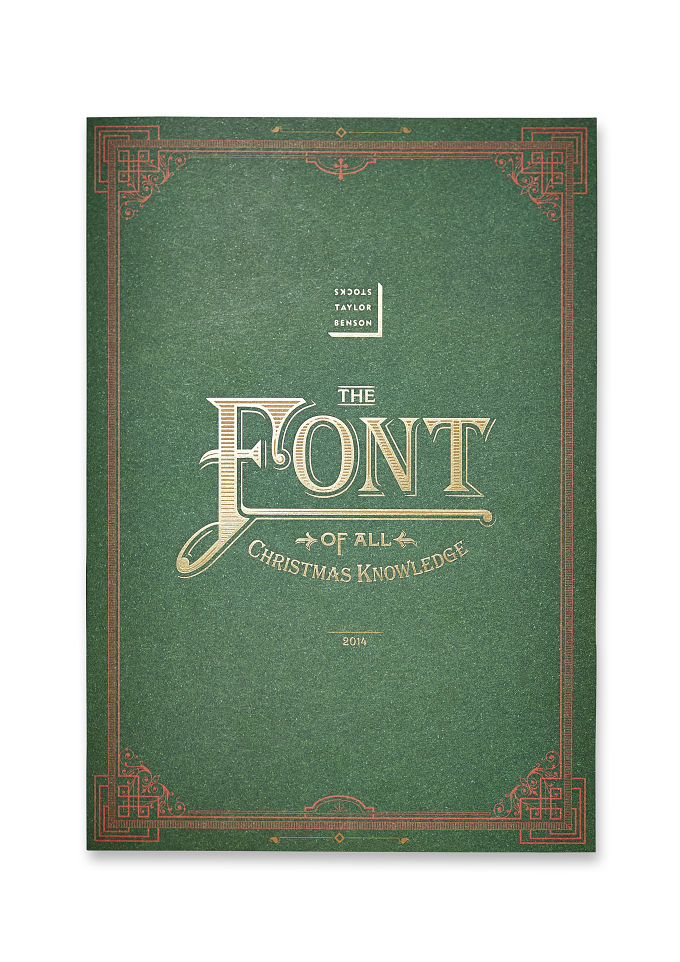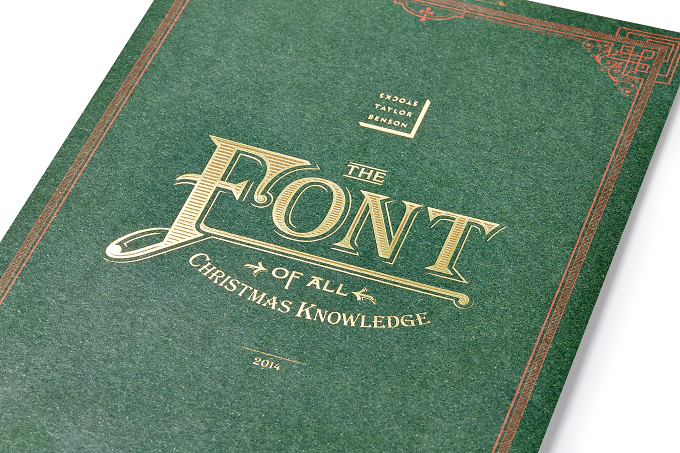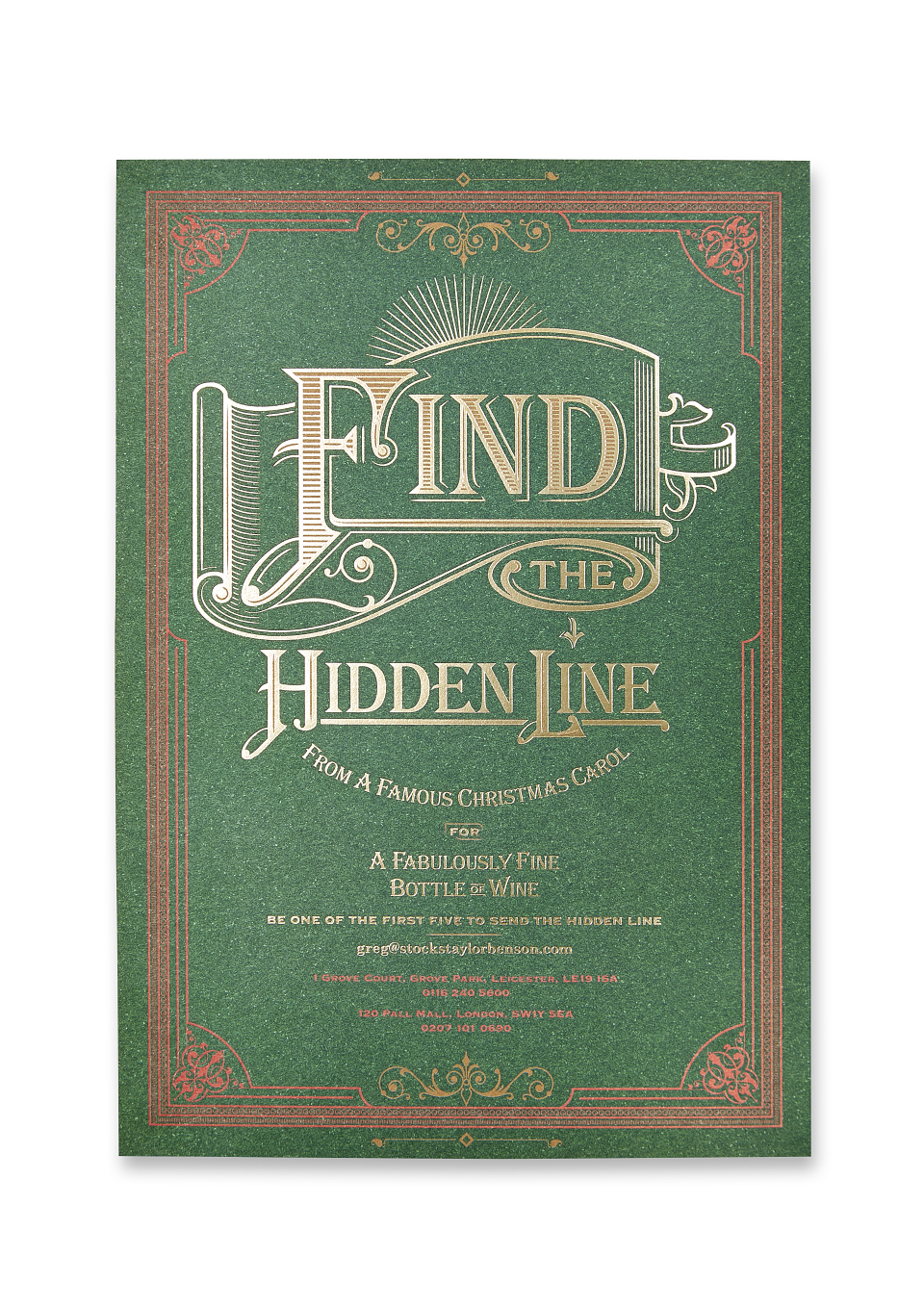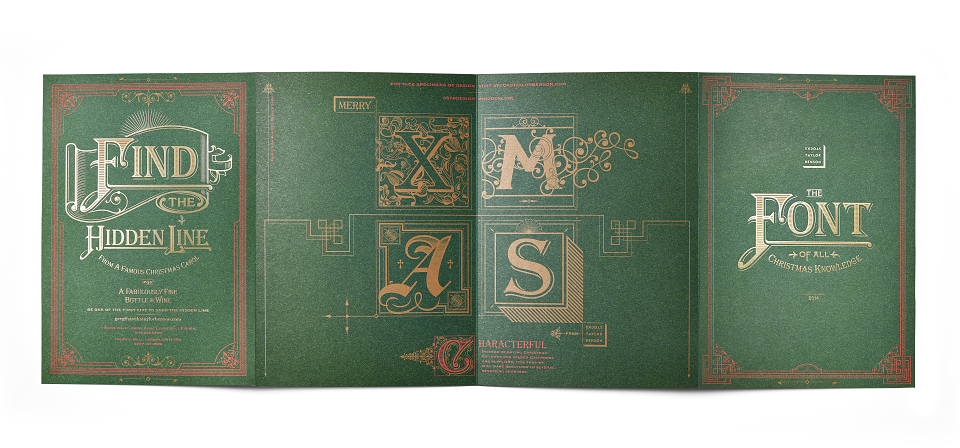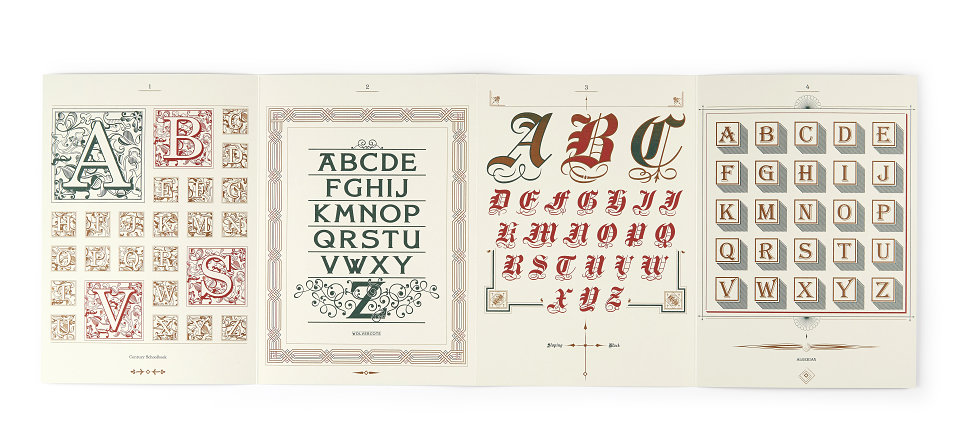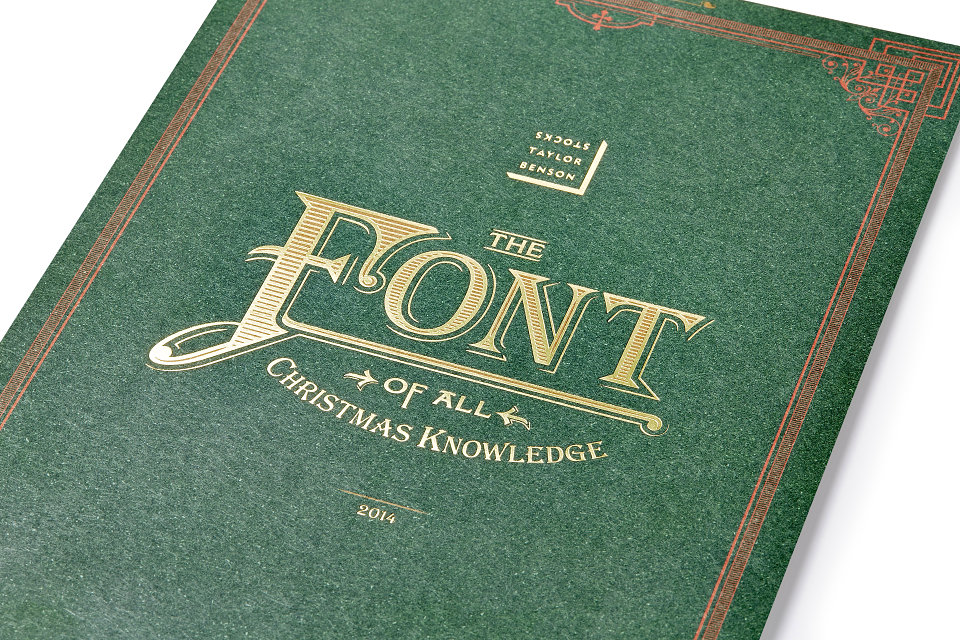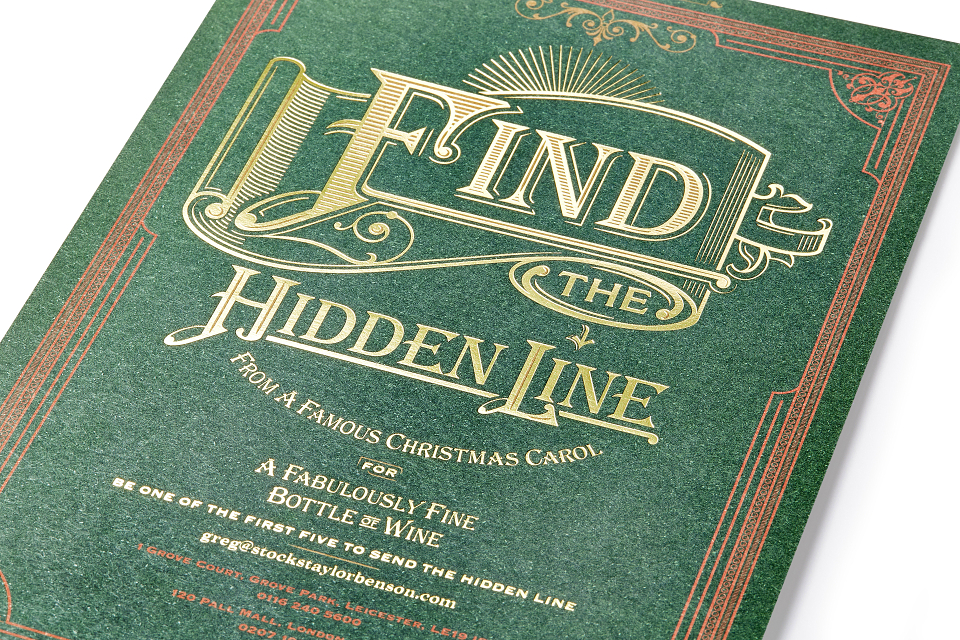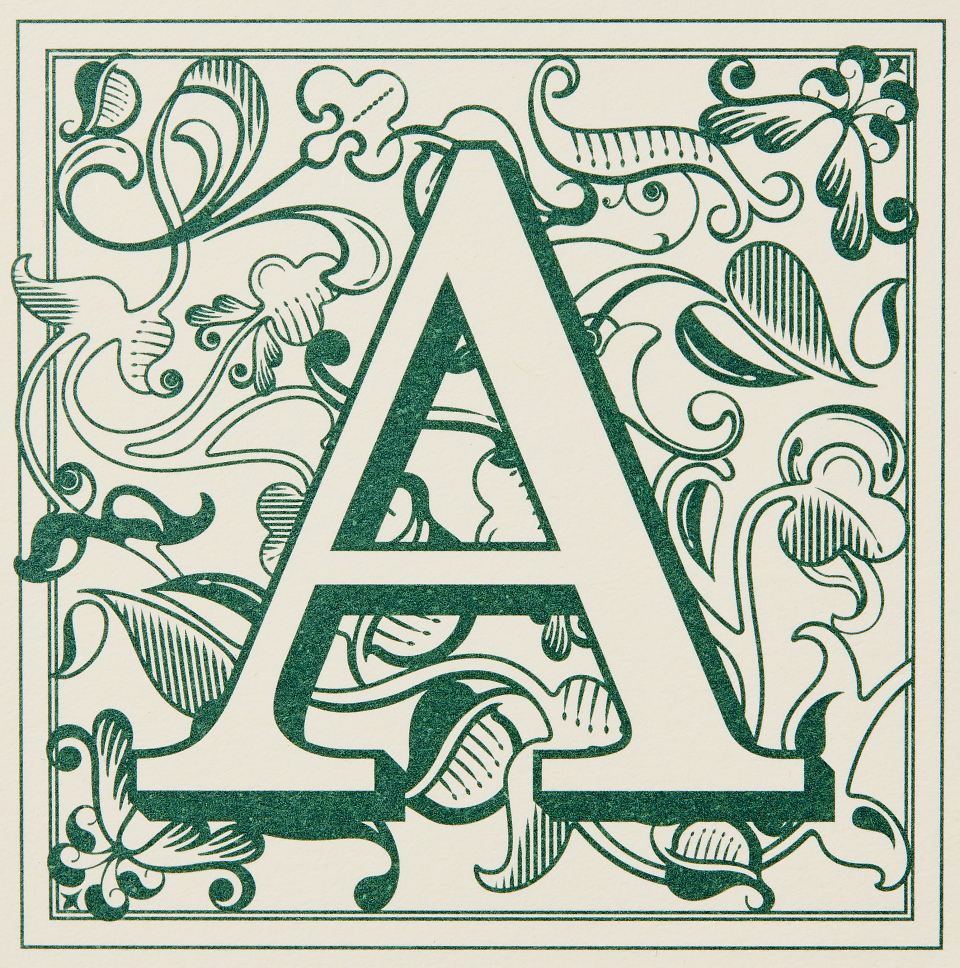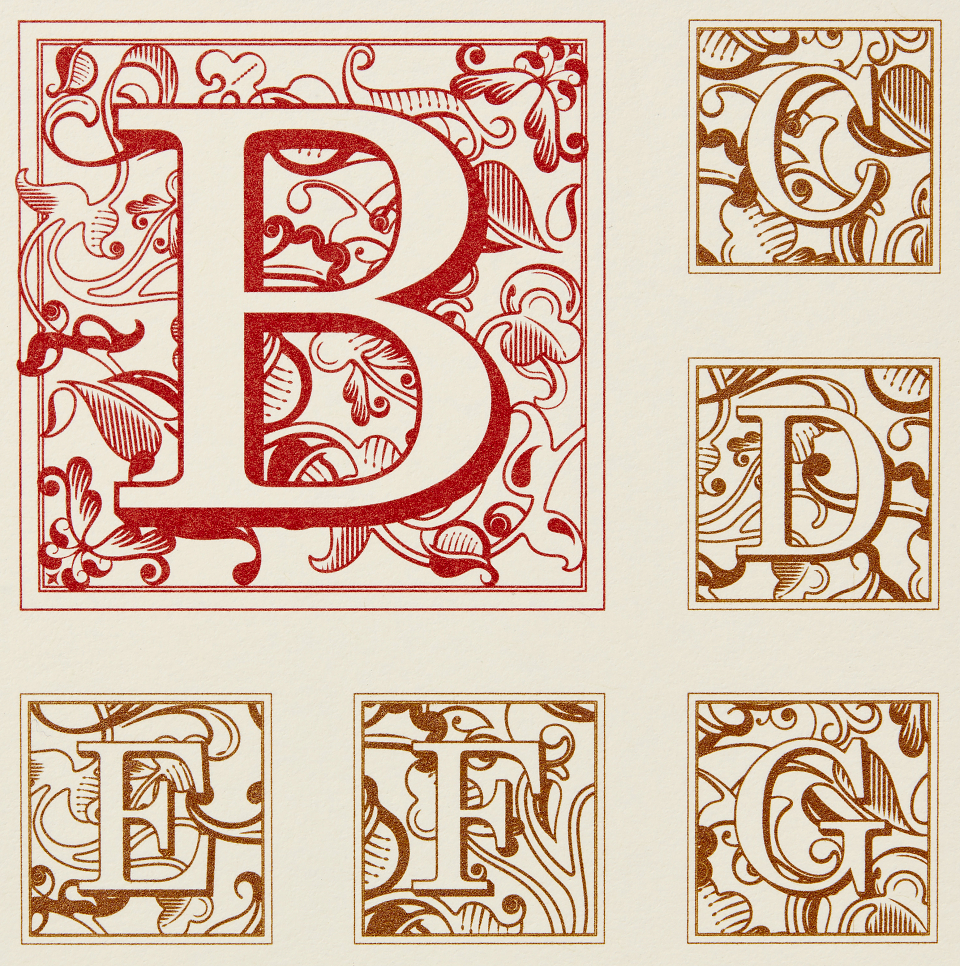
The brief was to create a bespoke Christmas card for our clients, suppliers and friends. The direct mail piece needed to engage people with a sense of festive fun, demonstrate our creative thinking and be lovingly crafted – to best reflect us as designers.
As designers we indulged in our love of typography; creating a Victoriana type specimen booklet titled ‘The Font of All Christmas Knowledge’. Featuring four beautiful circa 1900 alphabets, the audience were invited to “find the hidden line from a famous Christmas carol” that’s concealed within them. The traditional colours, off-white Pop’Set Oyster paper and elegant foil blocking made for a characterful piece of print.
What’s the hidden line? “No L, No L, No L, No L” – from The First Noel.